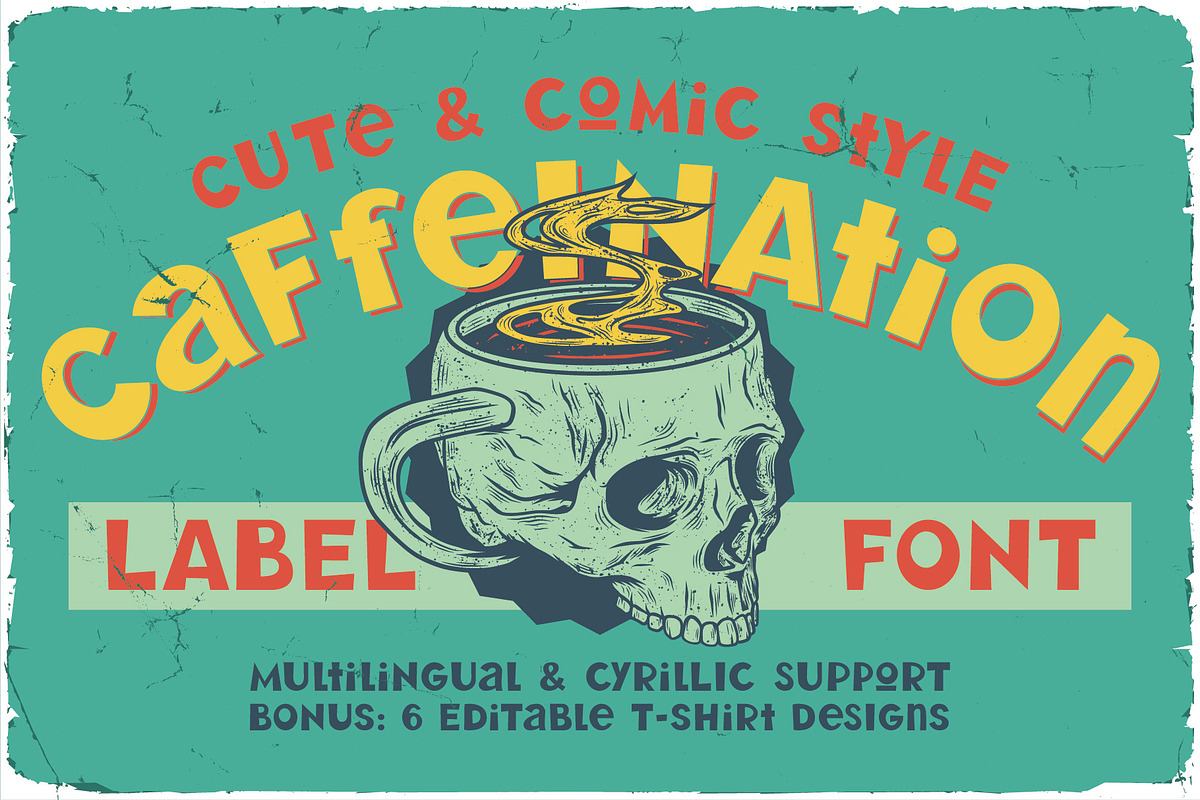
Caffeination Layered Comic Font Free Download
Caffeination Layered Comic Font Free Download is a fun, energetic typeface that brings comic book excitement and early-morning vibes together in one bold package. With its chunky letters, exaggerated expressions, and layered style options (like shadow, outline, and fill), this font is perfect for comic strips, storyboards, children’s books, YouTube thumbnails, stickers, and pop-art-inspired branding.
Designed to pop off the page, Caffeination is full of personality—like a triple shot of espresso for your designs. Whether you're writing action-packed dialogue or creating fun, lighthearted visuals, this font delivers clarity, emotion, and comic-book cool.